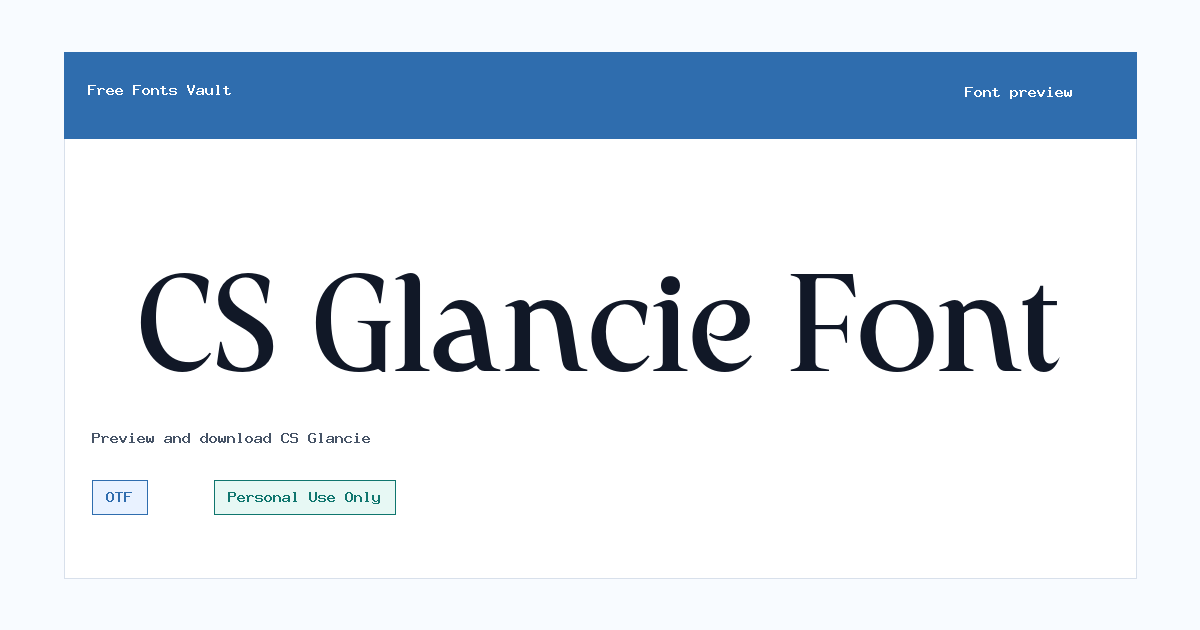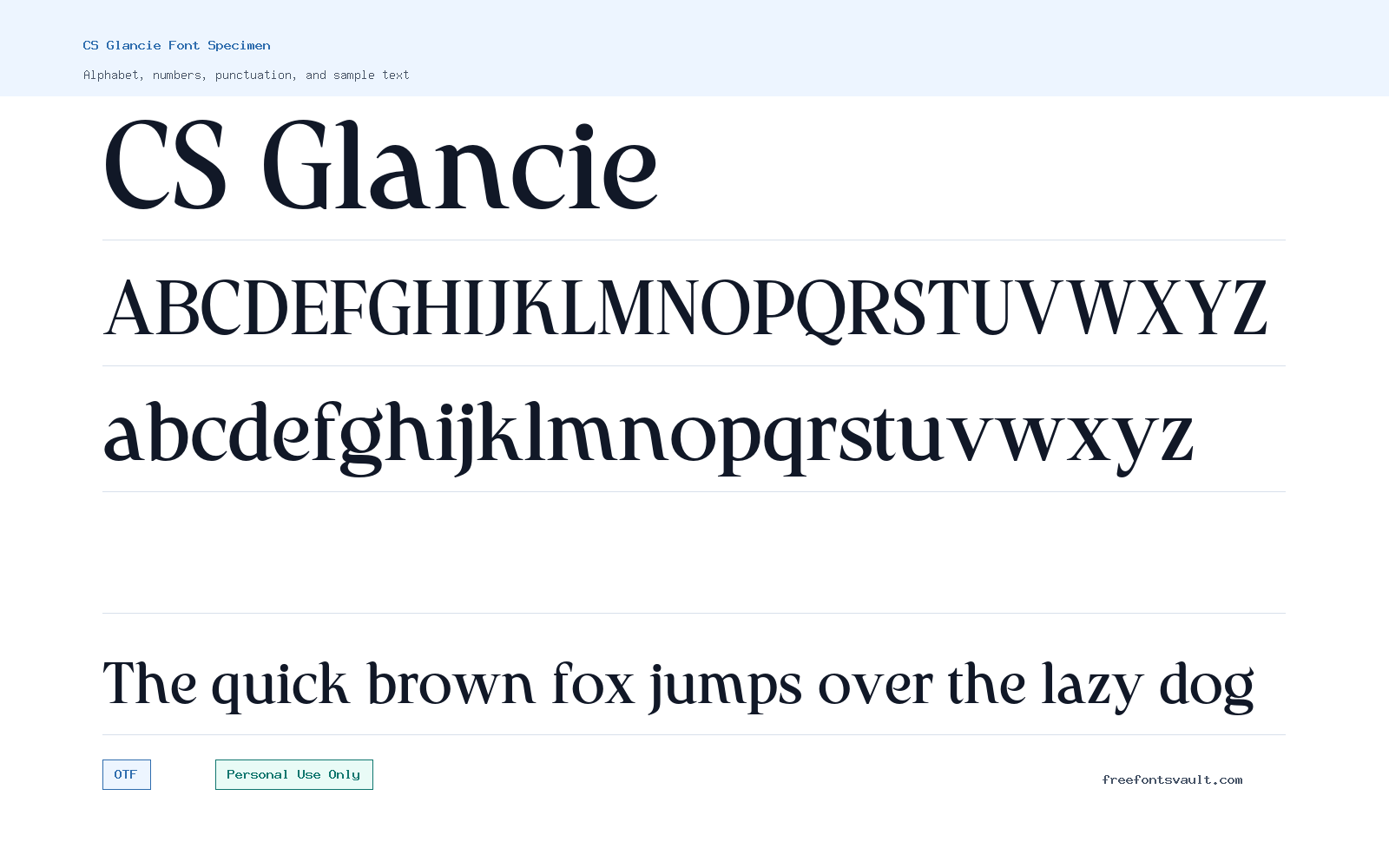
CS Glancie
CS Glancie is a serif font with a regular OTF style, made for designers who want to test a polished display typeface in personal projects before deciding how it fits their work.
CS Glancie works best when you give it room to show its serif shape clearly. Use the preview box to test words with tall letters, round letters, punctuation, and numbers, because serif fonts can change character quickly between a short title and a longer line of text. The included file is a regular style with normal weight, so it is most useful for clean headings, nameplates, quote graphics, invitations, social posts, and other short text settings where one style is enough.
For practical design work, start with CS Glancie in larger sizes and check the spacing before using it across a full layout. It may suit elegant titles, editorial-style headers, boutique branding mockups, stationery concepts, and personal portfolio graphics. If you need body text, test several lines first; many serif display fonts look strong in headings but become harder to read when used too small. Pair it with a simple sans serif for supporting text, especially in menus, captions, descriptions, or web sections where readability matters.
- Personal title designs, invitations, quote graphics, and social media posts
- Logo drafts, branding mockups, editorial headers, and stationery concepts
What style of font is CS Glancie?
CS Glancie is identified as a serif font. It is best to preview it with your own text to judge its exact mood, spacing, and readability.
What should I pair with CS Glancie?
A plain sans serif is a safe pairing choice. Use CS Glancie for the main title and keep supporting text simple so the layout stays readable.